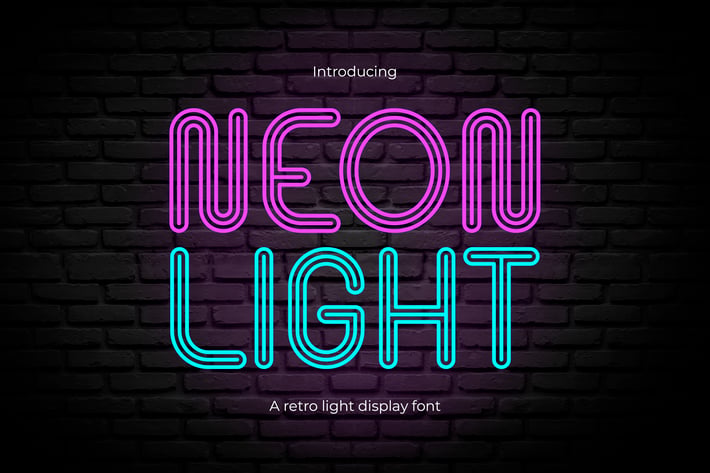
Neon Light - Retro Neon Font
Introducing Neon Light, a font that effortlessly infuses the retro glow of neon signs into your designs. Whether you're creating visuals for bars, clubs, pubs, restaurants, advertisements, music, quotes, posters, branding, or cover albums, Neon Light delivers a vibrant and inviting atmosphere to your projects.
The neon style of this font pays homage to the timeless appeal of vintage neon signs, bringing a sense of nostalgia and warmth. Neon Light adds an electrifying touch to your designs, capturing the essence of bustling city streets and lively nightlife.
Elevate your branding with this font, and watch as your logos and advertisements stand out from the crowd. Neon Light's friendly, easy-to-read typeface ensures that your message is delivered with clarity and style.
For music-related projects, Neon Light amplifies the visual impact of your content, making it perfect for posters, music cover designs, and promotional materials. The font's retro charm blends seamlessly with modern aesthetics, creating a unique and captivating look.
Incorporate Neon Light into your designs, and let the retro neon glow transform your projects into eye-catching, attention-grabbing pieces of art. Illuminate your creativity with Neon Light and embrace the nostalgic charm of neon signage.